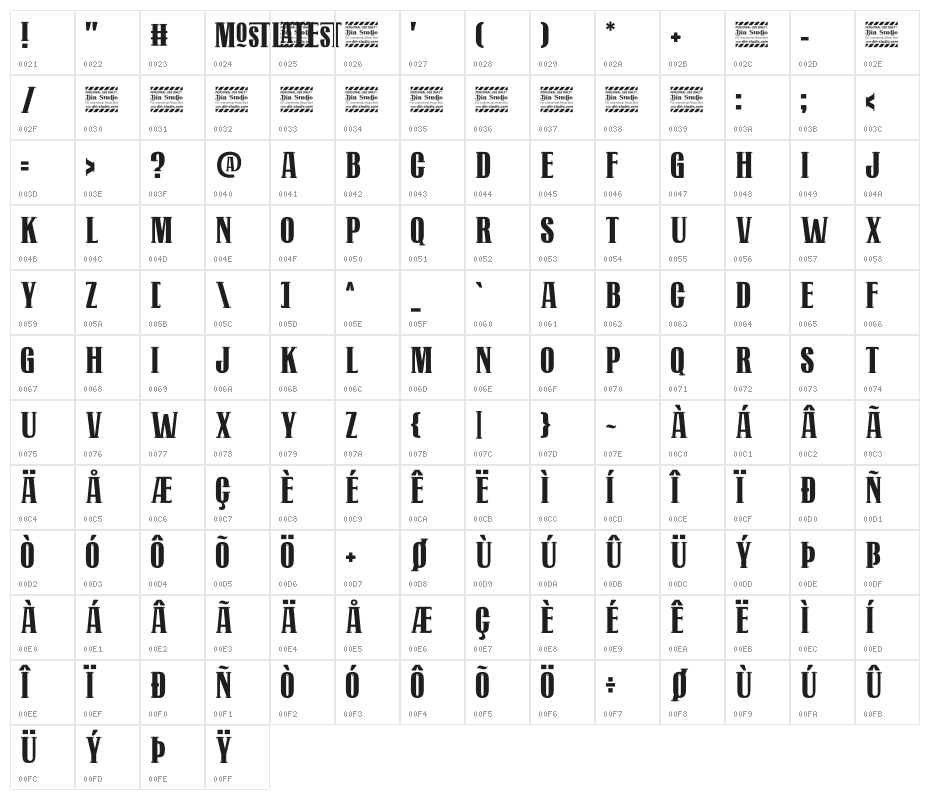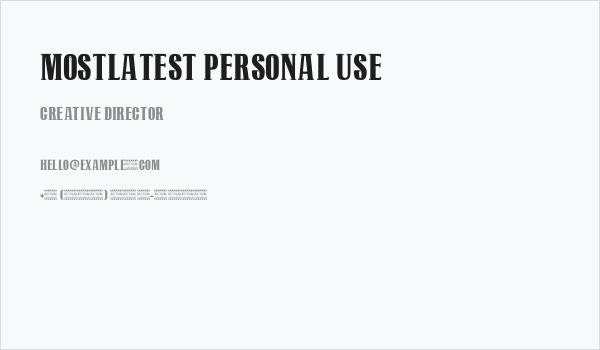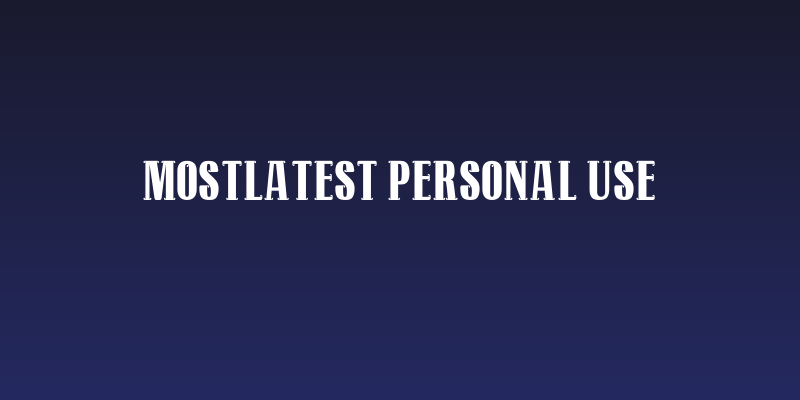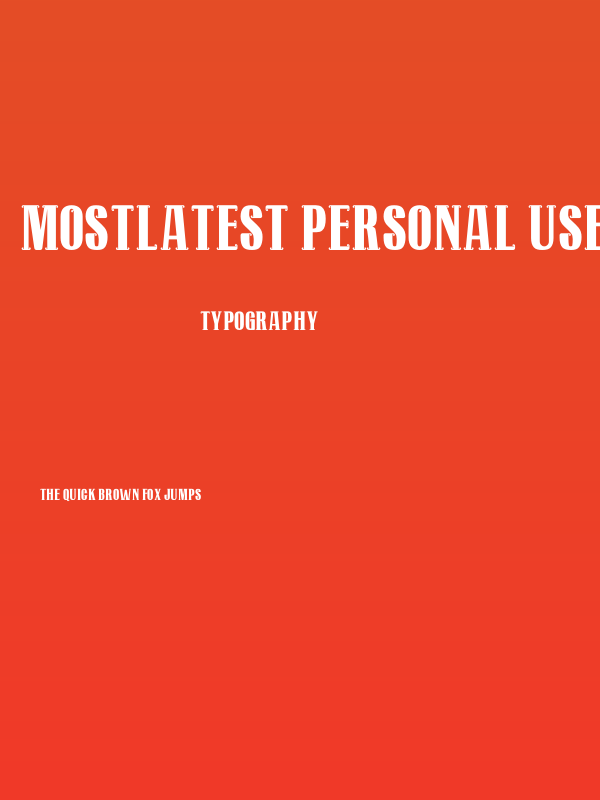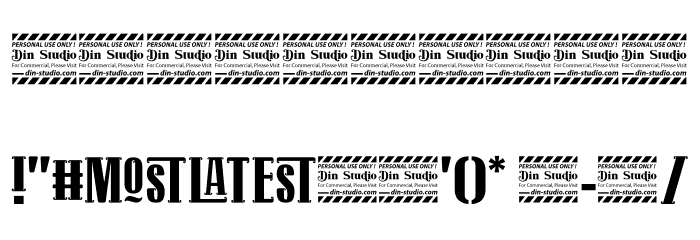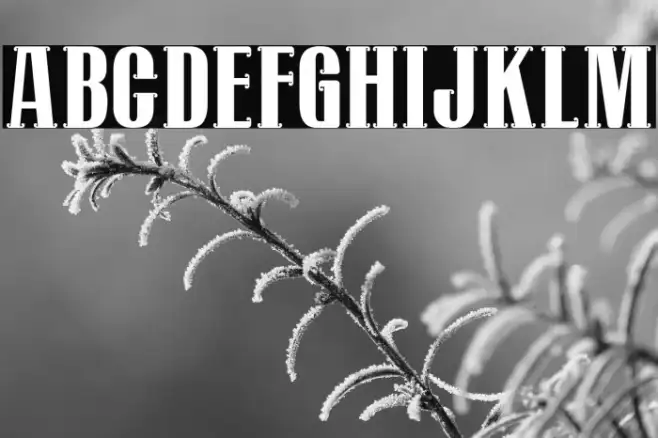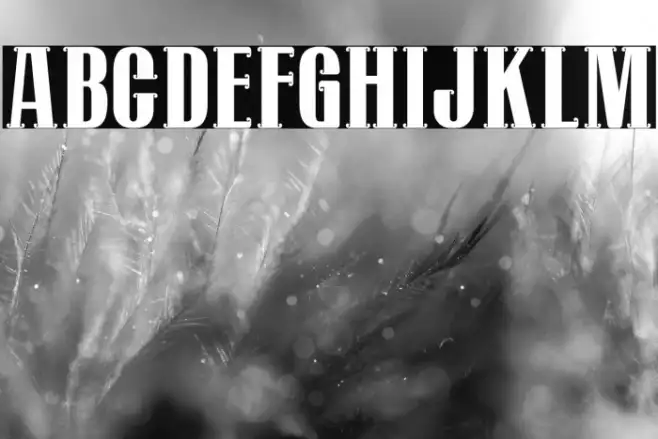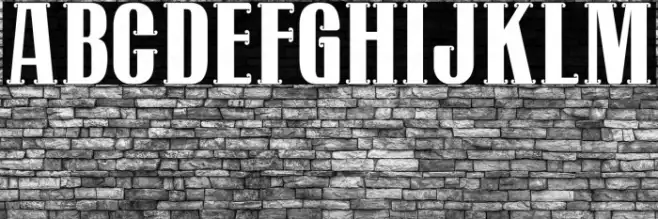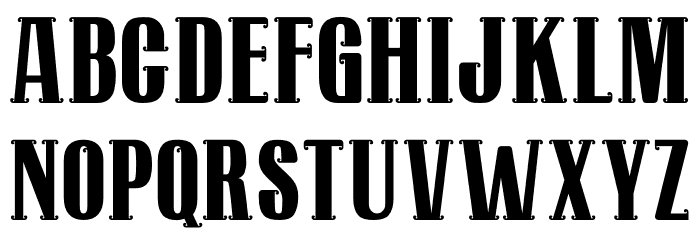
Mostlatest Personal Use Font
Mostlatest Personal Use Description
This font exhibits a bold and striking design with a strong presence. Each character is crafted with a slab serif style, featuring thick, block-like serifs that add a sense of stability and strength. The uppercase letters are particularly prominent, showcasing a uniform height and width that contribute to a cohesive and balanced appearance. The lowercase letters maintain the same robust quality, ensuring readability and consistency across different text sizes. The numerals and special characters are designed to match the overall aesthetic, providing a seamless integration into any design project. This font is ideal for making a bold statement, whether in headlines, posters, or branding materials.
| Proposed Projects | Ideal for headlines, posters, branding, and any project requiring a strong visual impact. |